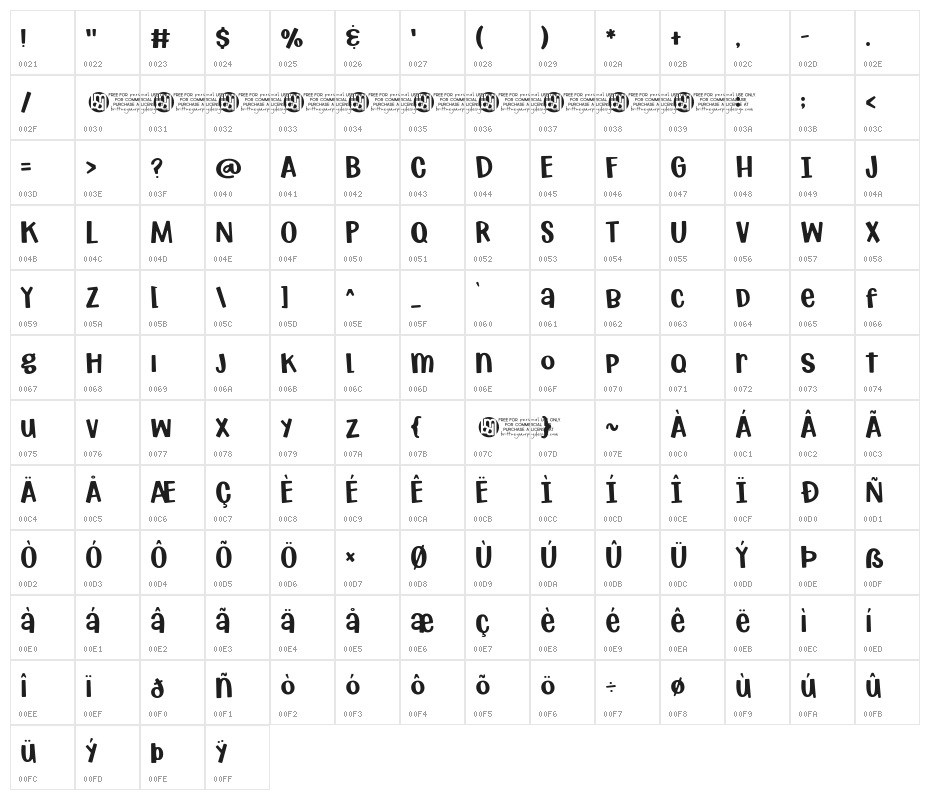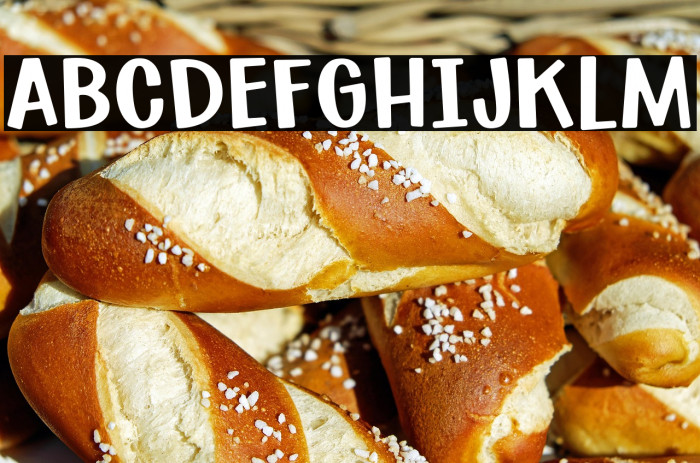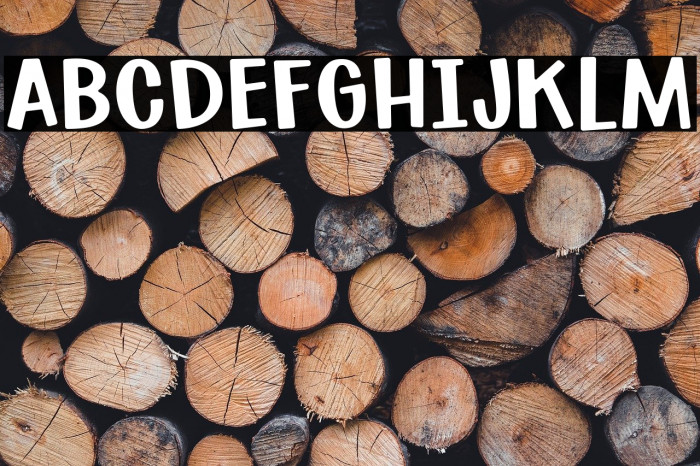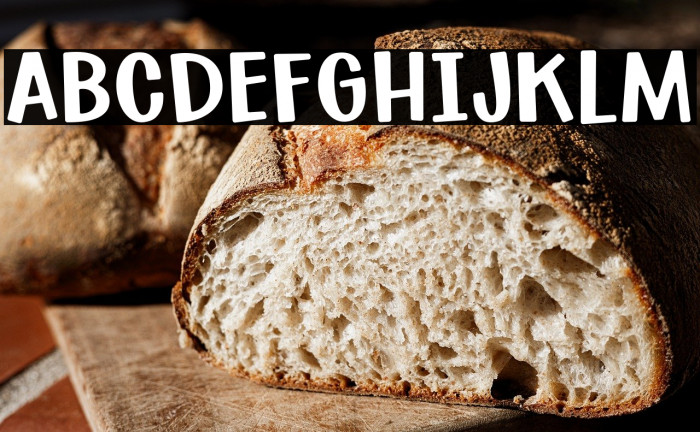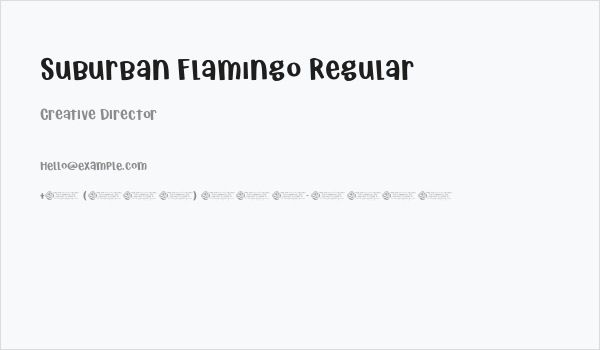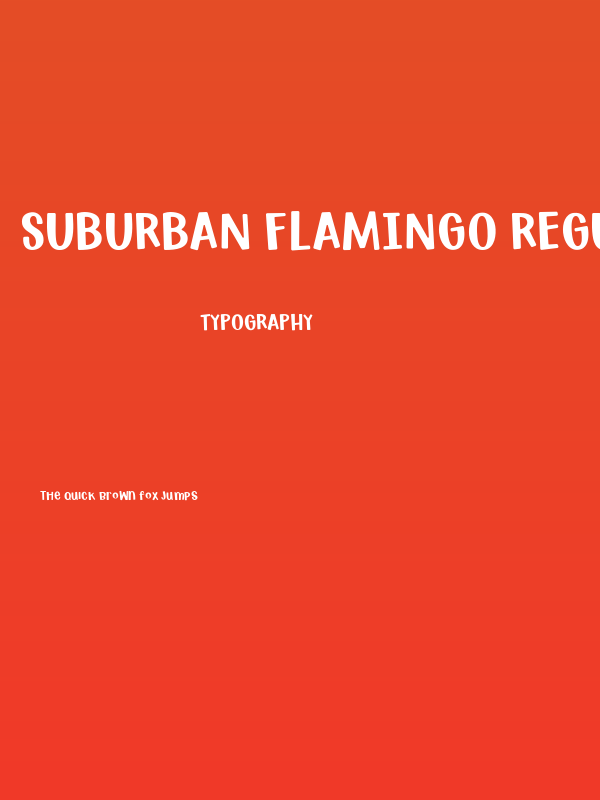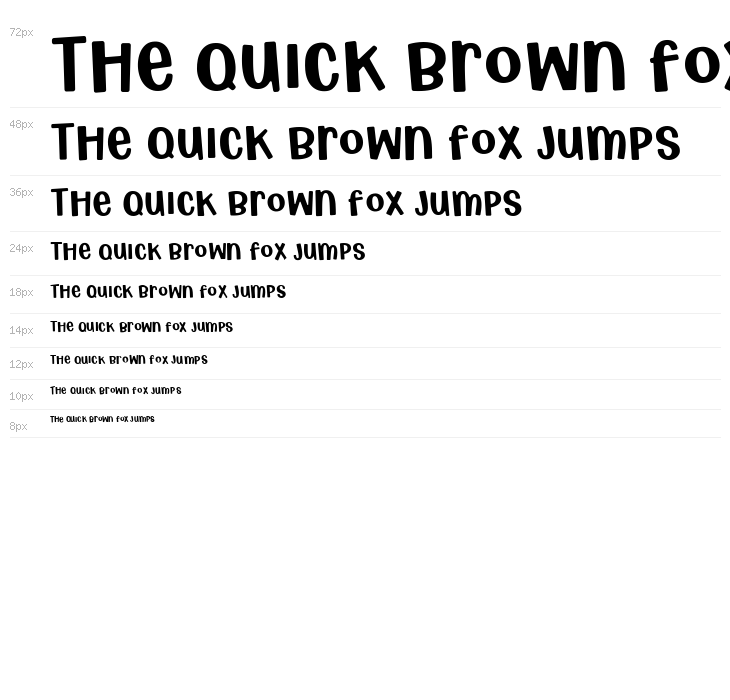
Suburban Flamingo Regular Font
Suburban Flamingo Regular Description
This playful and quirky font features a bold and rounded style with a whimsical touch. The letters have a hand-drawn appearance, giving them a friendly and approachable vibe. The uppercase and lowercase characters maintain a consistent width, with slightly exaggerated curves and loops that add to the font's charm. The numbers and special characters follow the same design principles, ensuring a cohesive look across all text elements. The font's unique personality makes it stand out, making it suitable for creative and informal projects.
| Overall Style | Playful, Quirky |
| Proposed Projects | Ideal for children's books, playful branding, greeting cards, and creative posters. |